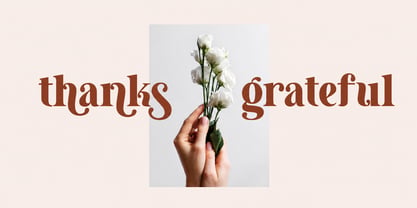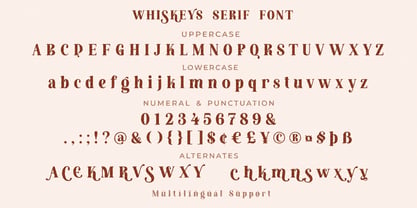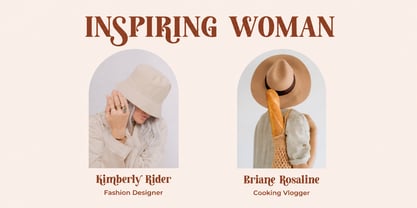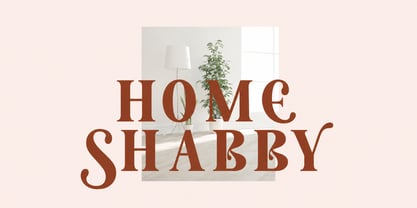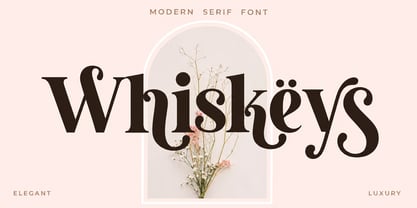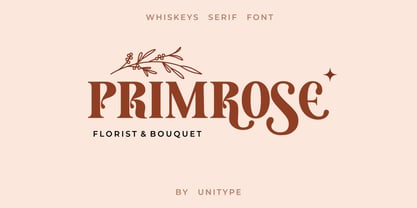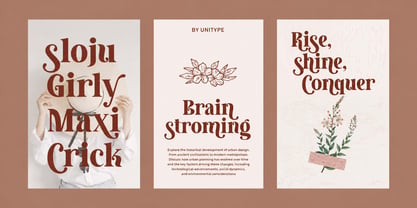
Whiskeys – Modern Elegant Serif Font for Branding
Whiskeys is a modern elegant serif font designed for contemporary branding and stylish visual communication. With its sleek letterforms, refined details, and timeless aesthetic, Whiskeys brings a sophisticated look that enhances a wide range of creative and professional design projects.
This modern serif font combines classic elegance with a fresh contemporary style, making it an excellent choice for designers who want typography that feels both luxurious and modern. Its balanced proportions and graceful shapes create a polished appearance that works beautifully for branding, logos, and editorial layouts.
Whiskeys features a light structure with high contrast strokes, giving the font a distinctive and fashionable personality. The elegant curves and refined serifs make it especially suitable for feminine branding, beauty logos, fashion magazines, and stylish marketing materials.
Whether used for brand identity, packaging design, or magazine headlines, Whiskeys delivers a strong visual presence while maintaining readability and elegance. The font performs beautifully across both print and digital environments, making it ideal for modern design applications.
From clothing branding and fashion campaigns to advertising materials, postcards, and T-shirt designs, Whiskeys helps create typography that feels sophisticated, stylish, and memorable.
Designers looking for a modern serif font for luxury branding and editorial design will find Whiskeys to be a powerful and versatile choice that elevates any visual concept.
Key Features
Modern Elegant Serif Font
A refined serif style perfect for contemporary branding and editorial layouts.
High Contrast Letterforms
Light strokes with elegant contrast create a luxurious visual appearance.
Perfect Fashion & Beauty Font
Ideal for feminine logos, fashion brands, and beauty product designs.
Stylish Editorial Typography
Great for magazine headings, advertising, and creative publications.
Professional Branding Font
Designed to create memorable logos and visual identities.
Multilingual Support
Extended characters for international language support.
Perfect For
• Logo Design & Brand Identity
• Fashion & Beauty Branding
• Magazine Headings & Editorial Design
• Packaging & Product Labels
• Advertising & Marketing Materials
• Clothing Branding & T-Shirt Design
• Social Media Graphics
• Postcards & Promotional Designs
Why Choose Whiskeys?
Whiskeys is a stylish modern serif font that combines elegance, clarity, and versatility. Its refined letterforms and fashionable personality make it perfect for designers who want typography that feels luxurious, modern, and professional.